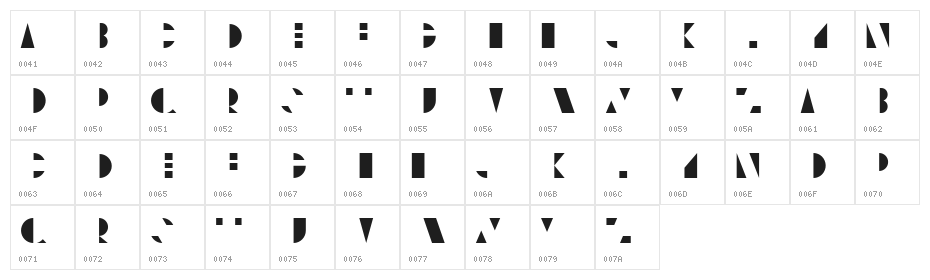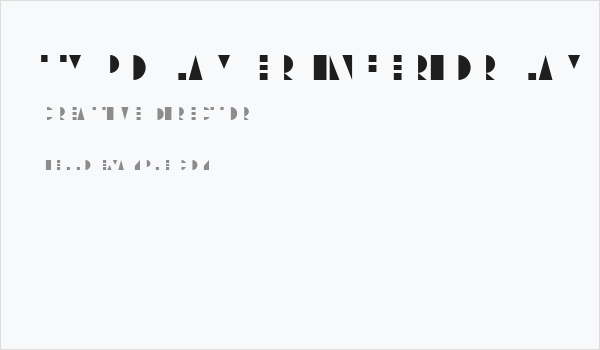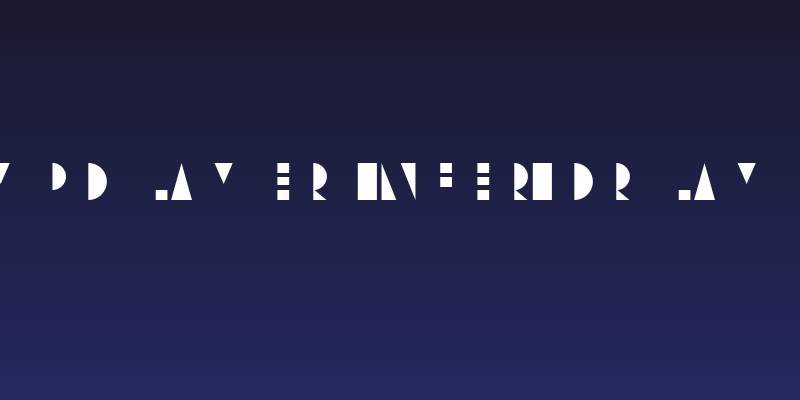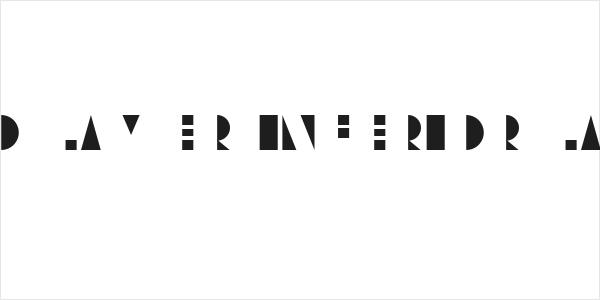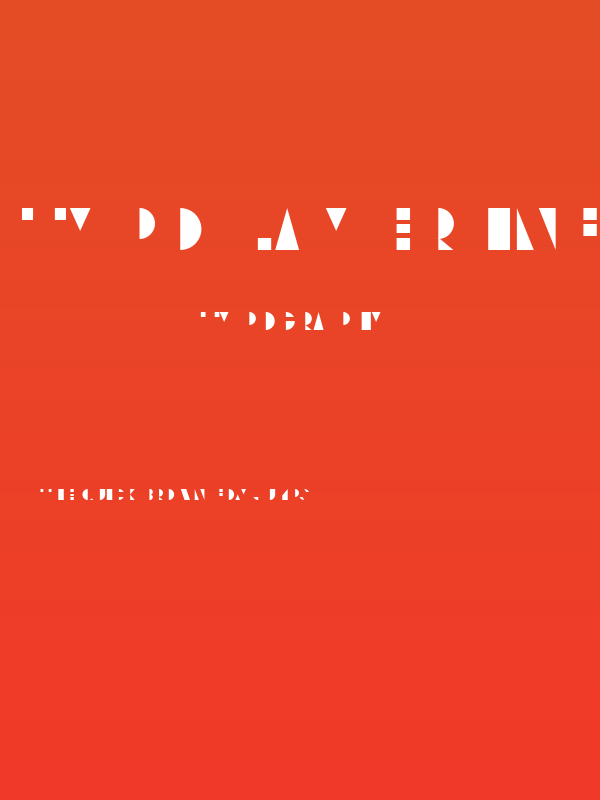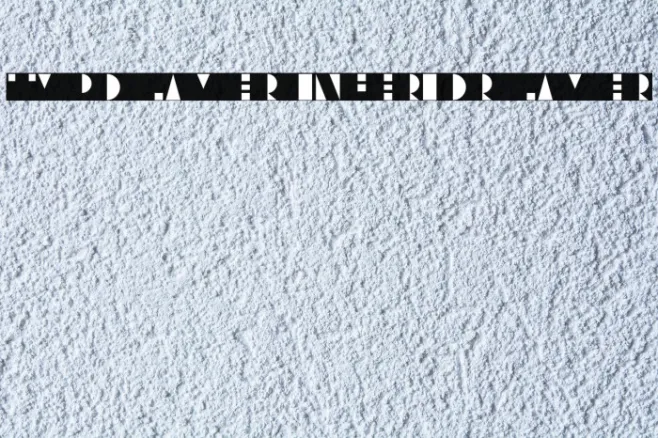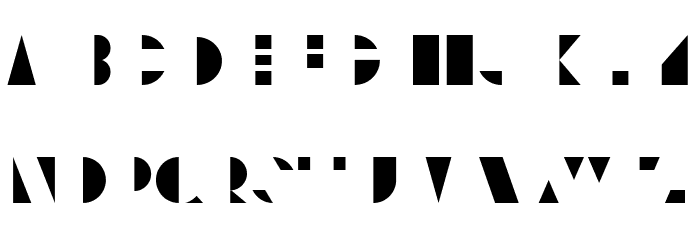
Typo Layer Inferior Layer Font
Typo Layer Inferior Layer Description
This font features a unique and artistic design with a geometric, abstract style. Each character is composed of bold, solid shapes that create a striking visual impact. The letters are partially filled, with some sections missing, giving them a fragmented appearance. This creates a modern and avant-garde look, making it ideal for creative and contemporary projects. The font's distinct style is characterized by its use of negative space and bold geometric forms, which contribute to its eye-catching and unconventional aesthetic. The uppercase and lowercase letters maintain a consistent design, while the numbers and special characters follow the same geometric theme, ensuring uniformity across all characters.